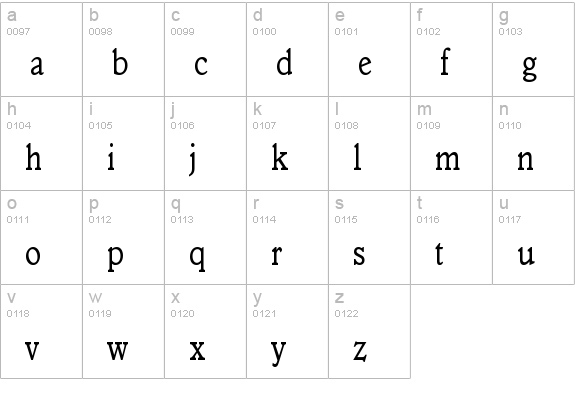
VeroneseBookCondensed Font Details
VeroneseBookCondensed font is a modern and sophisticated typeface that exudes elegance and professionalism. With its condensed design, this font is perfect for adding a touch of sleekness to any design project. Featuring clean lines and a balanced letterform, VeroneseBookCondensed offers a harmonious blend of classic and contemporary styles. Its versatility makes it suitable for a wide range of applications, including branding, headlines, editorial design, and more. What sets VeroneseBookCondensed apart is its availability as a free download. FontsMarket.com proudly offers this font for free, making it accessible to designers and creatives alike. Now, you can elevate your designs without breaking the bank. Whether you're working on a personal project or a professional endeavor, VeroneseBookCondensed font will effortlessly elevate your typography game. Its legibility and timeless appeal ensure that your message will be conveyed with clarity and style. Download VeroneseBookCondensed font for free at FontsMarket.com and unlock a world of design possibilities. With this font by your side, your creations will stand out from the crowd and leave a lasting impression on your audience.